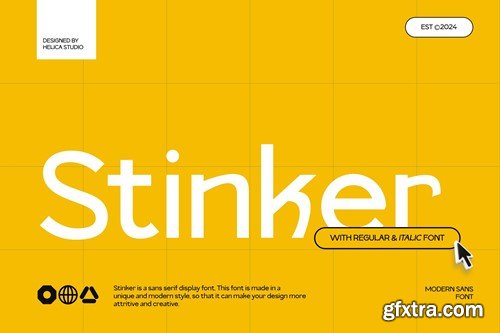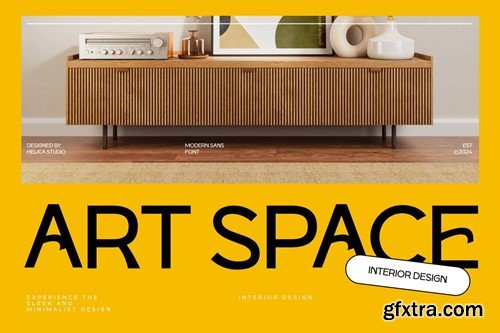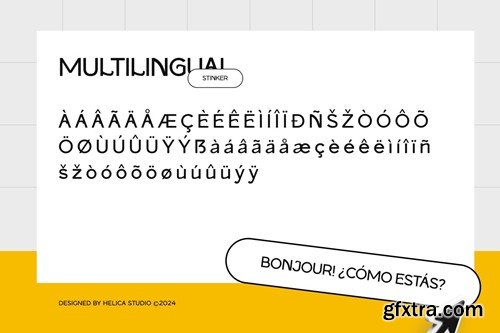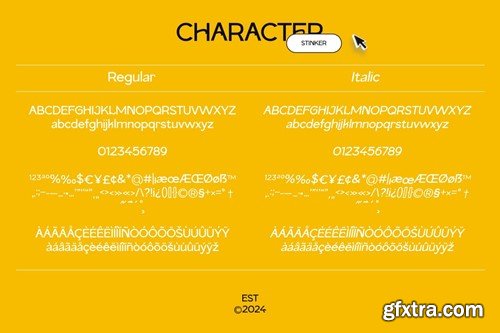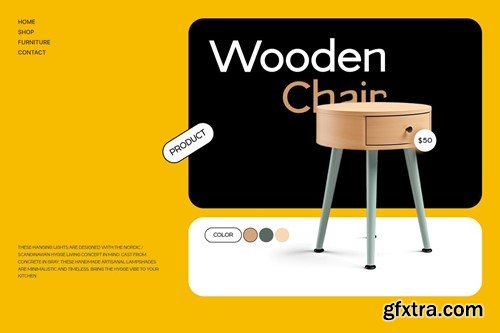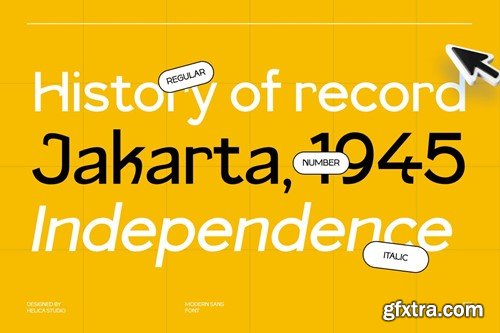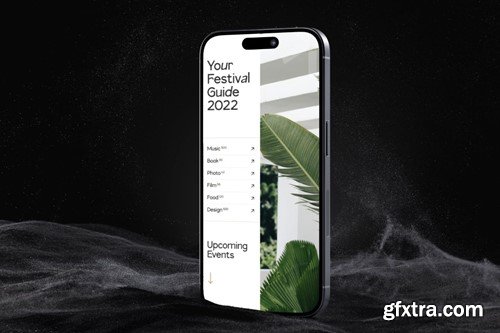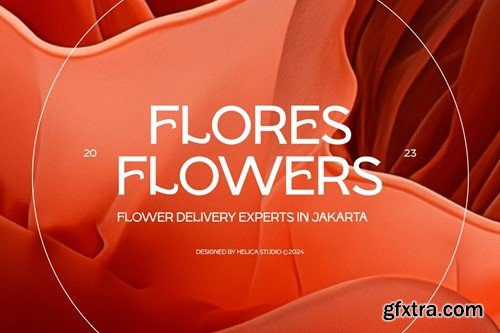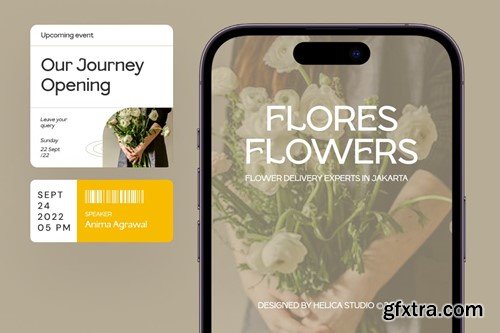
Stinker Modern Sans 显示字体 T54B9R8
Stinker Modern Sans Display Font T54B9R8
Stinker Modern Sans Display Font
Stinker Modern Sans Display Font typeface is perfect for crafting elegant quotes, stunning logos, captivating magazine headers, and so much more.
Main Features
• Ligatures, Numeral & Punctuations
• Regular & Italic Font Version